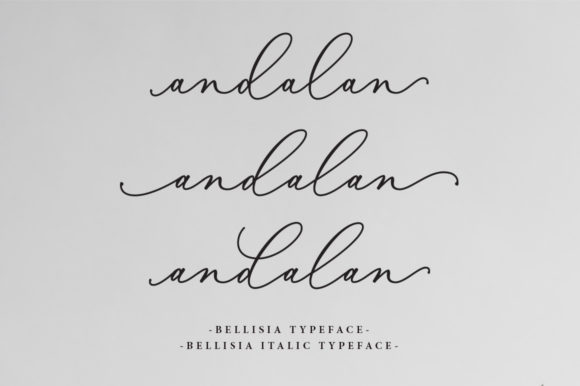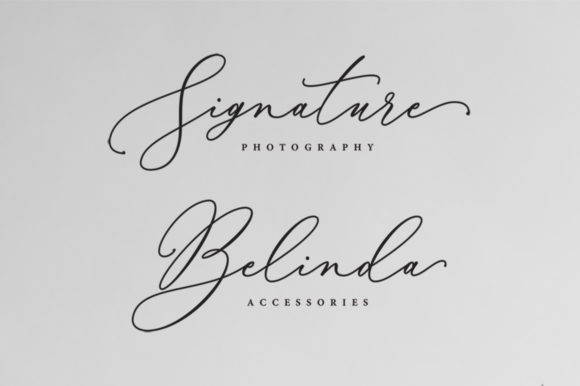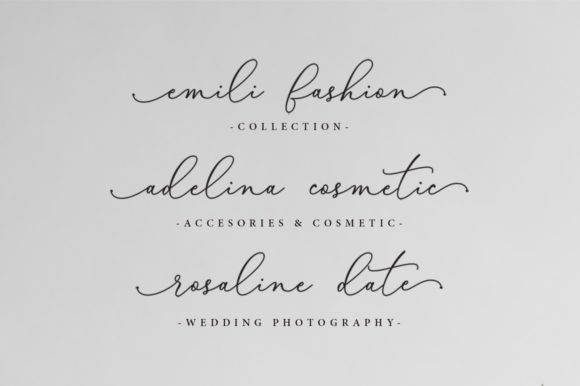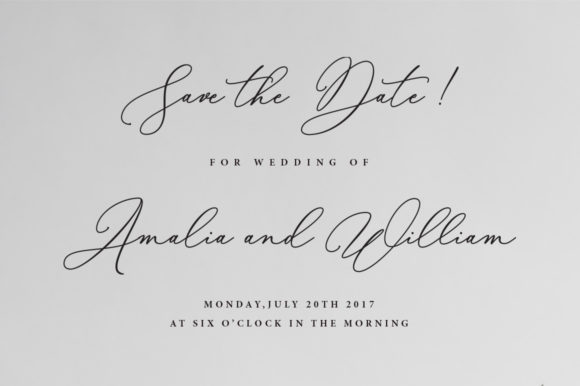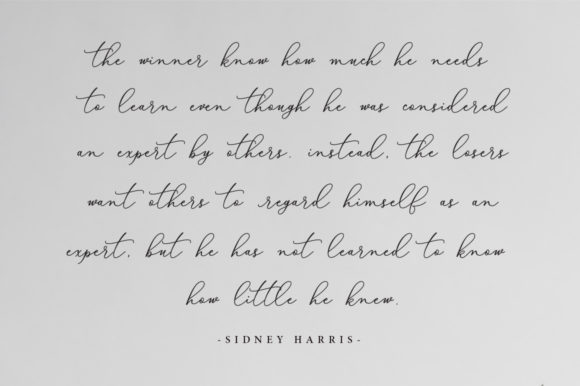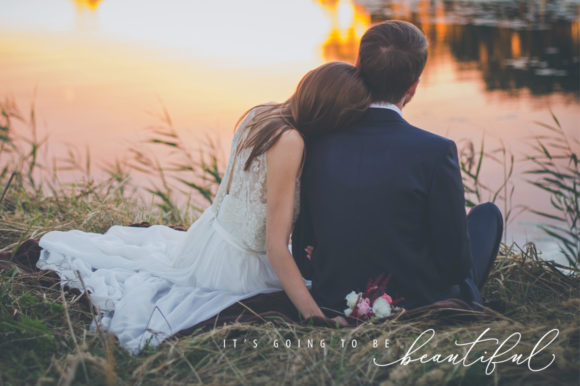
Bellisia Font
About Bellisia Font
Bellisia is a flowing and incredibly elegant handwritten font. This font is PUA encoded which means you can access all of the glyphs and swashes with ease! It features a varying baseline, smooth lines, gorgeous glyphs and stunning alternates. Fall in love with its versatile and magical style and use it to create spectacular designs!